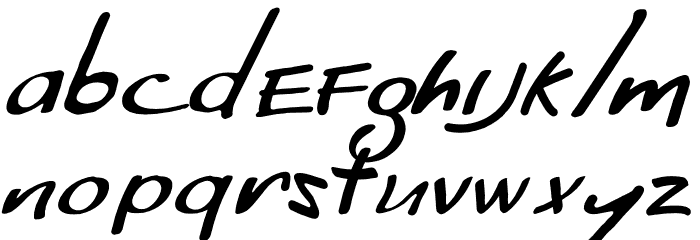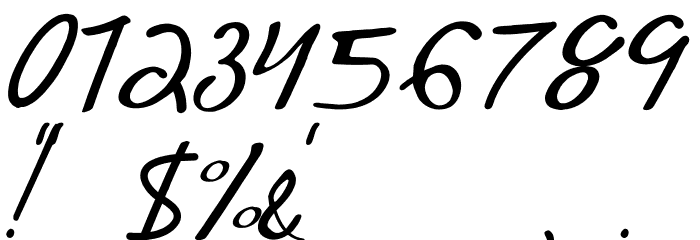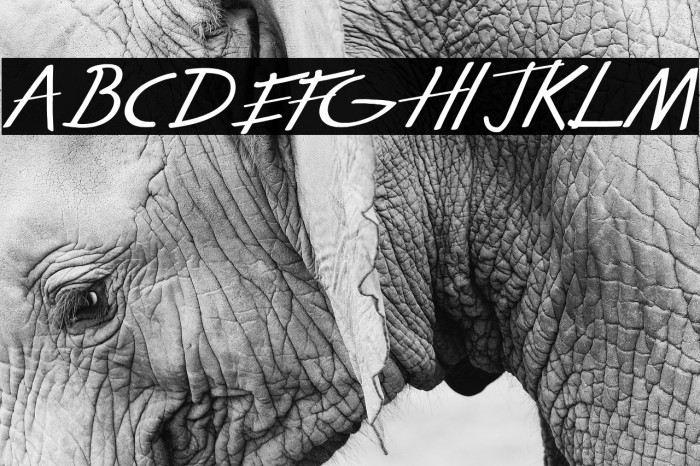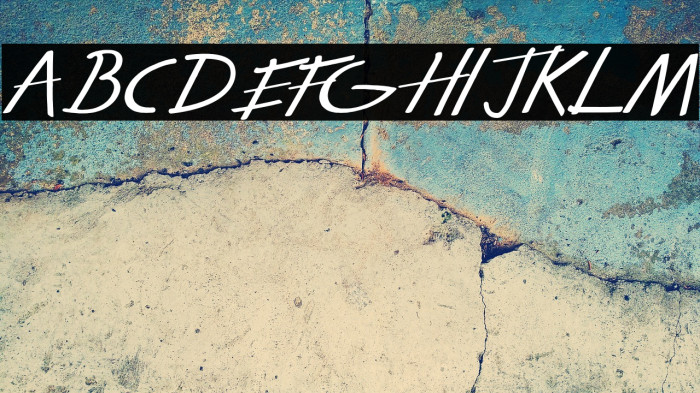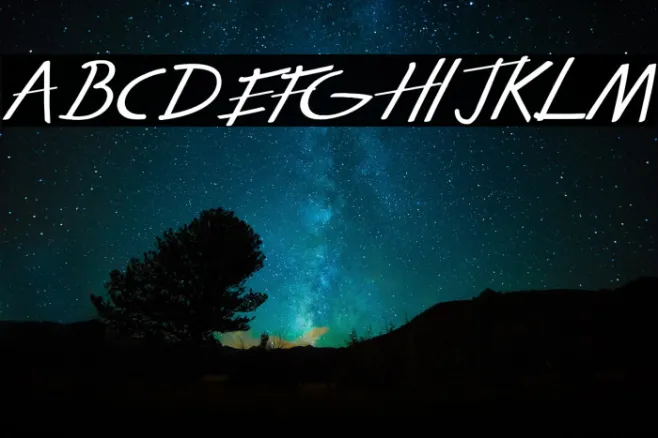
Far From Homecoming Font
This font features a dynamic and expressive handwritten style, characterized by its fluid and slightly irregular strokes. The uppercase letters exhibit a playful yet sophisticated flair, with some letters like 'E' and 'F' having unique crossbars that add to the font's charm. The lowercase letters maintain a consistent flow, with distinctive loops and curves, particularly in letters like 'g' and 'y'. The numerals are bold and clear, ensuring readability while maintaining the font's overall artistic style. Special characters are well-integrated, matching the font's energetic and lively aesthetic. This font is ideal for projects that require a personal touch, such as invitations, greeting cards, or creative branding.
A dynamic and expressive handwritten font with fluid strokes and playful characteristics.
- Proposed Projects: Ideal for invitations, greeting cards, creative branding, and artistic projects.
- Use Case: Logos, Headlines, Artistic projects